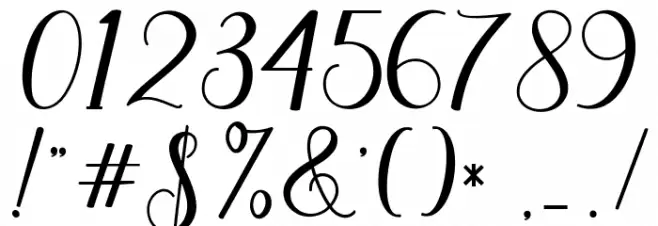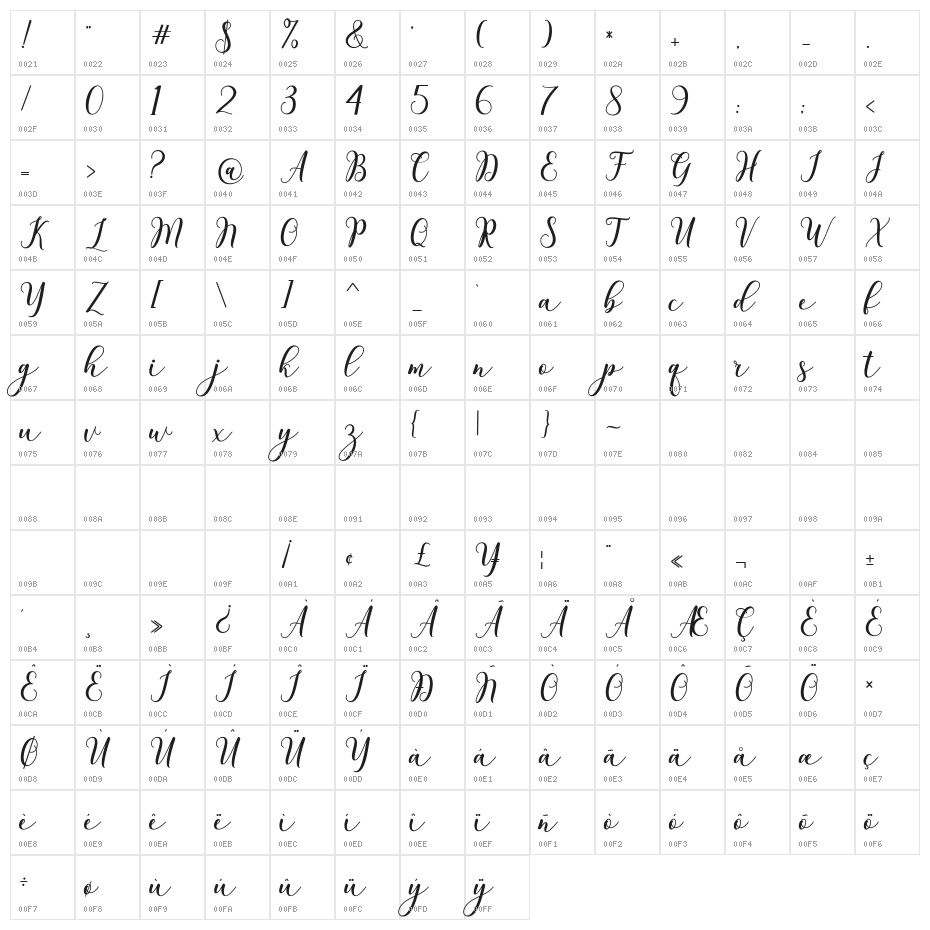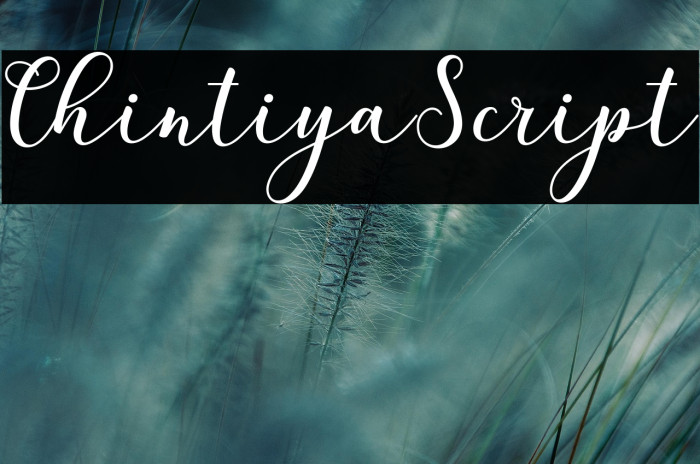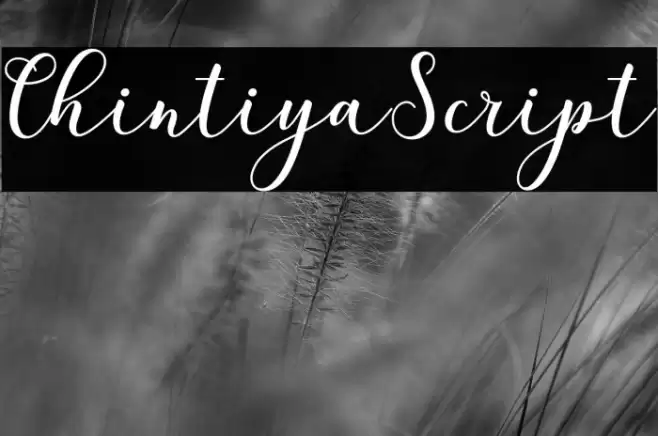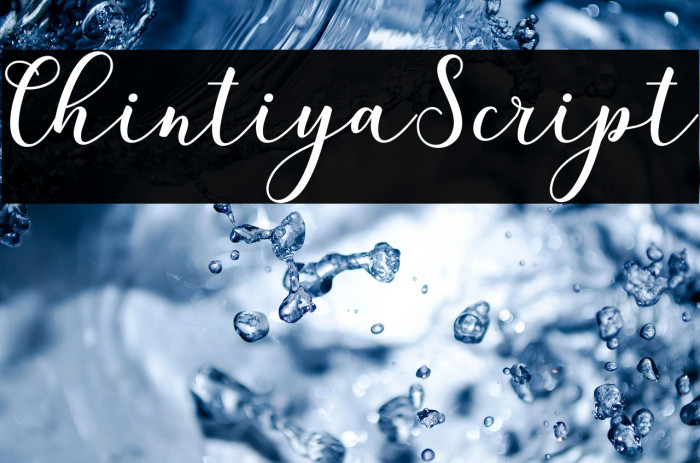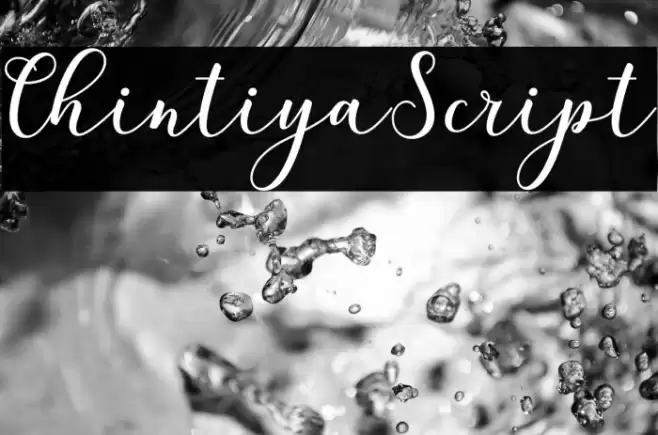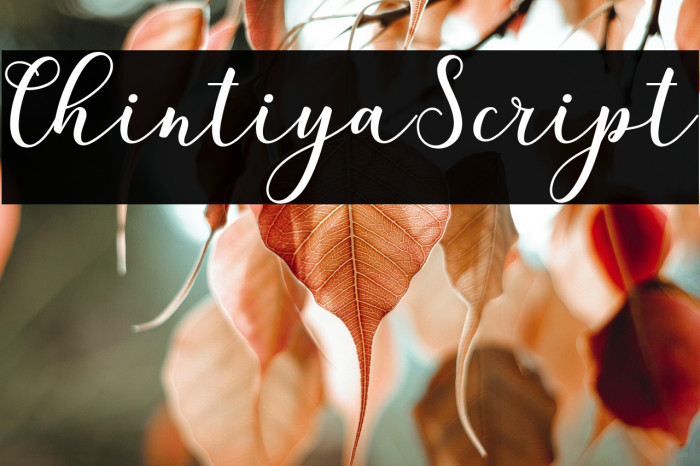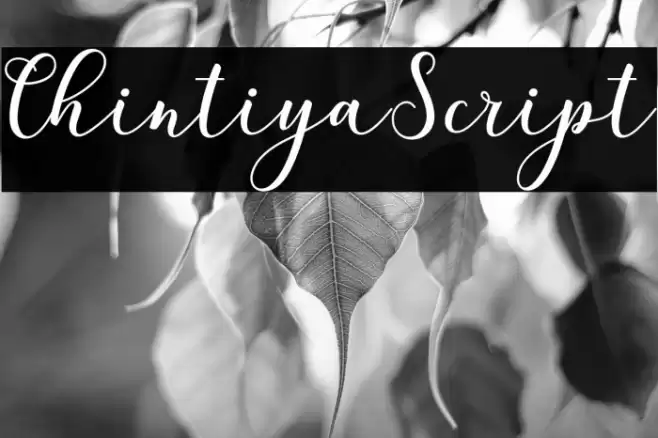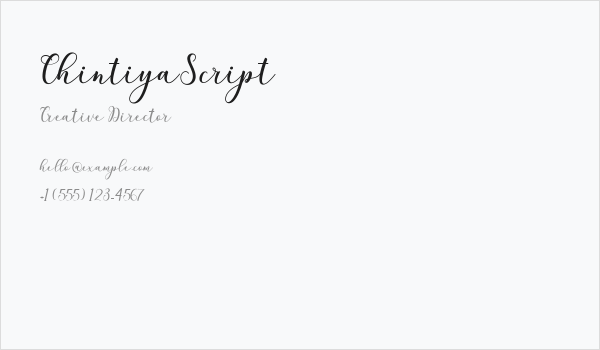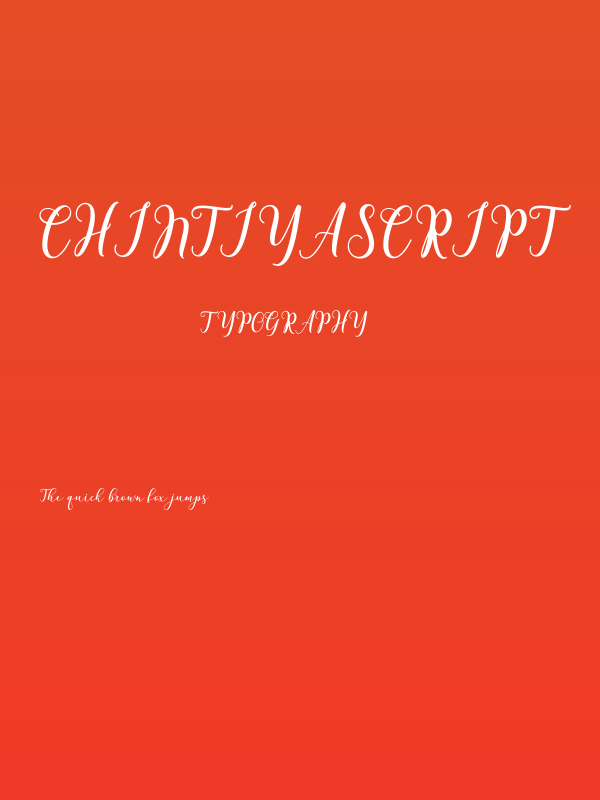
ChintiyaScript Font
ChintiyaScript Description
This elegant script font features flowing, cursive letterforms with a graceful and sophisticated appearance. The uppercase letters are characterized by sweeping curves and flourishes, giving them a sense of movement and fluidity. The lowercase letters maintain a consistent style, with smooth connections between characters, enhancing the font's readability. The numerals are designed with a similar flair, incorporating subtle curves that align with the overall aesthetic. Special characters are thoughtfully integrated, maintaining the font's cohesive look. This font exudes a sense of elegance and charm, making it ideal for formal and decorative uses.